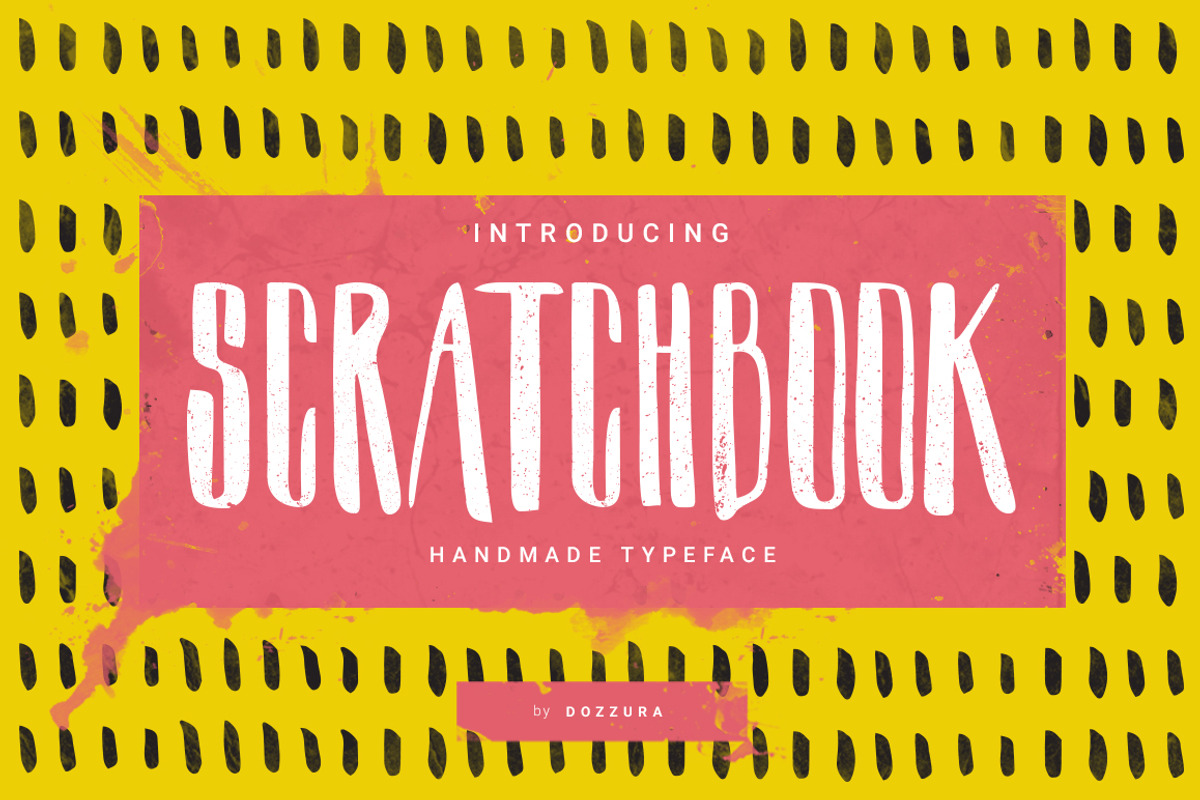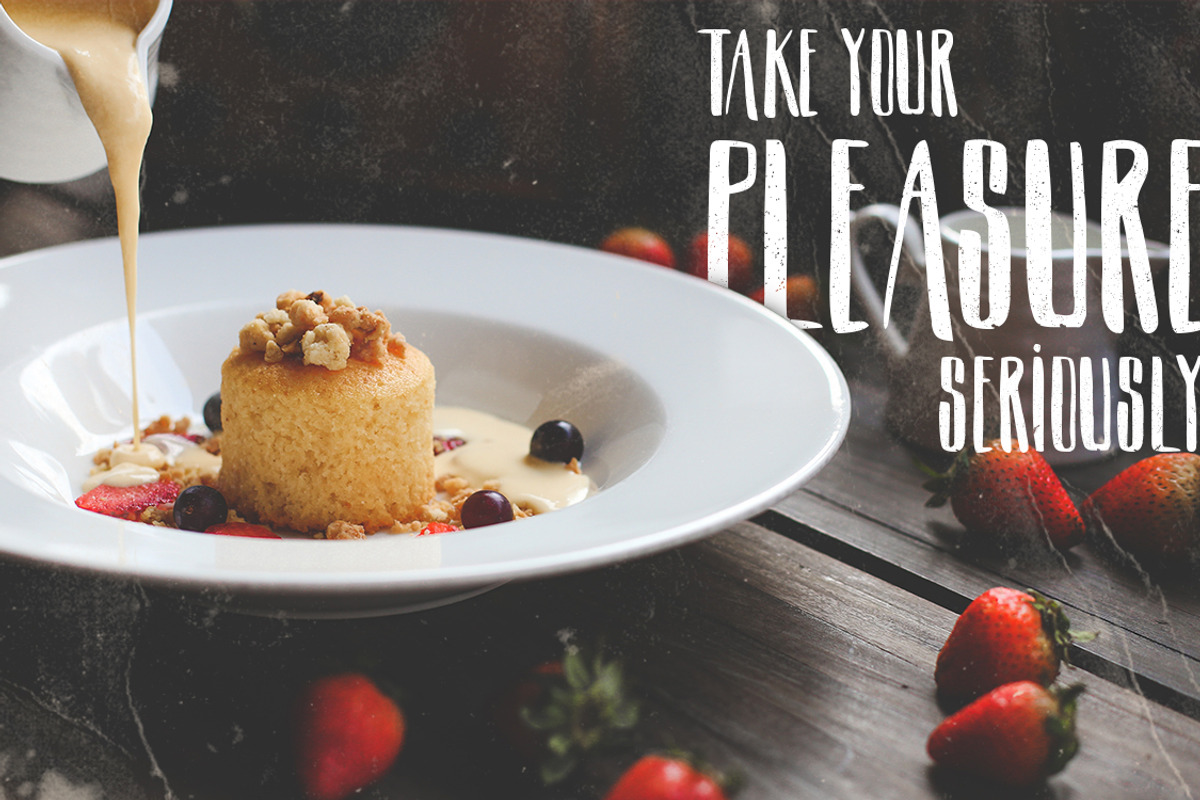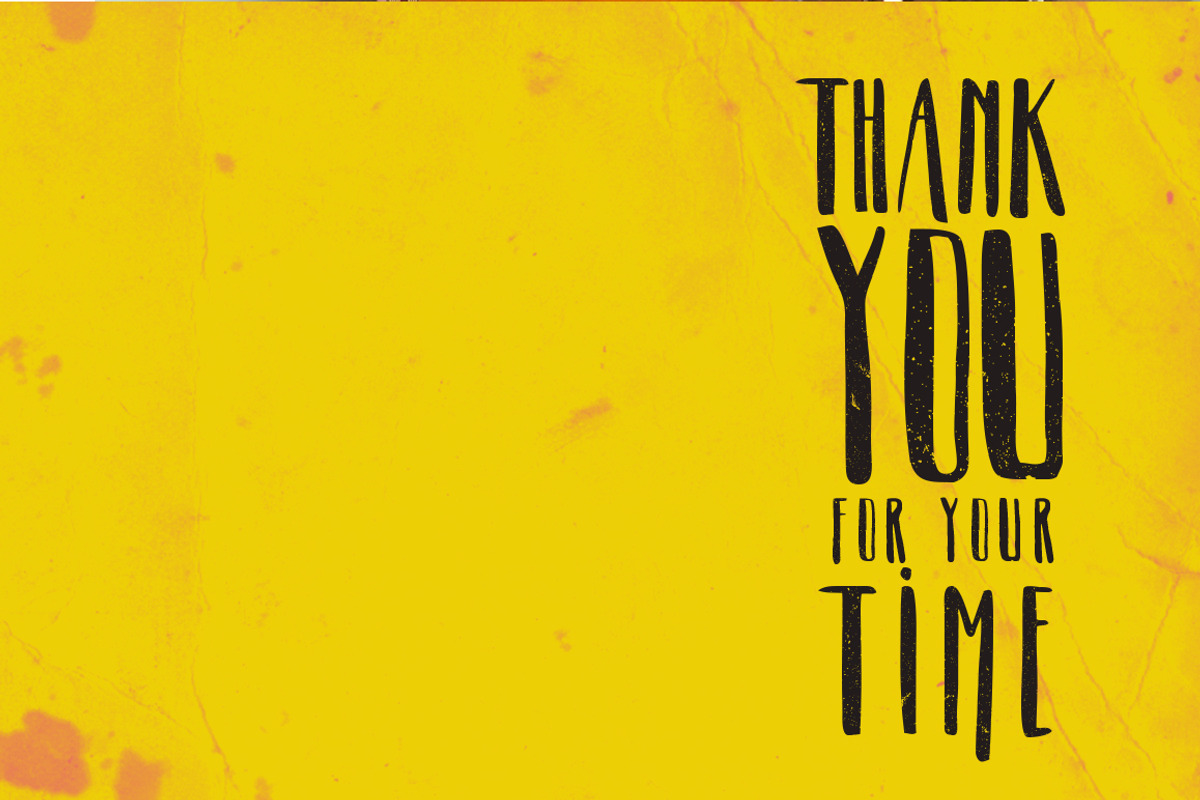
Scratchbook Typeface
Scratchbook Typeface by DOZZURA is a font selected for branding, posters, packaging, typography.
- Scratchbook typeface is a handbrush font includes 2 different styles that could be used in a variety of designs such as Logos, Greeting Card
- Scratchbook Regular
- Scratchbook rough
Why Scratchbook Typeface is worth a look
Scratchbook Typeface by DOZZURA fits naturally into Branding, posters, packaging, typography.